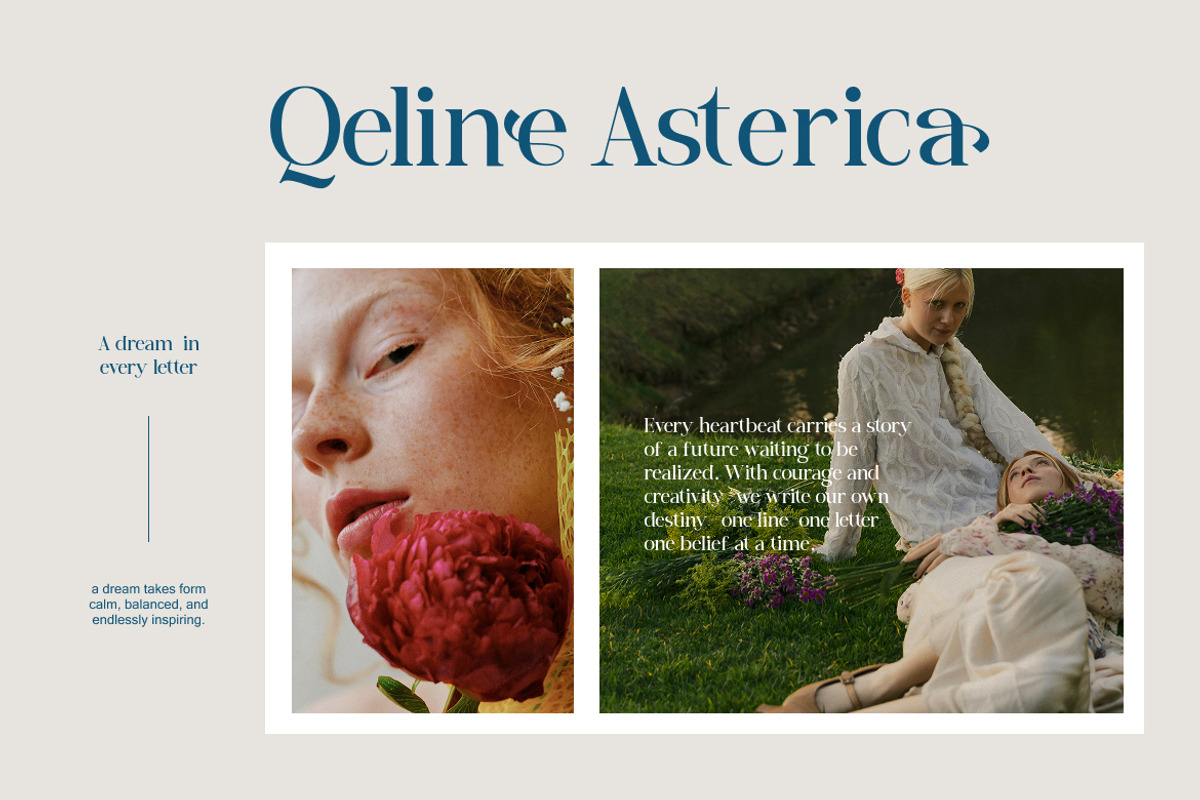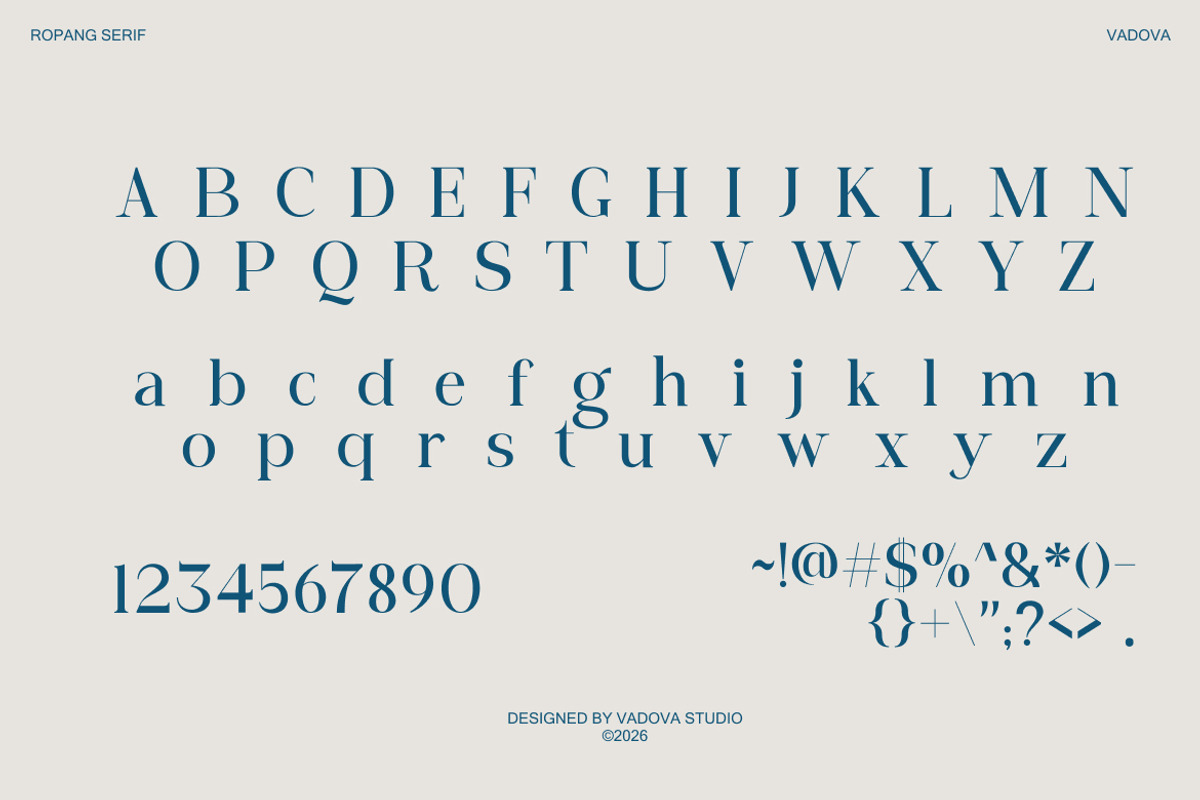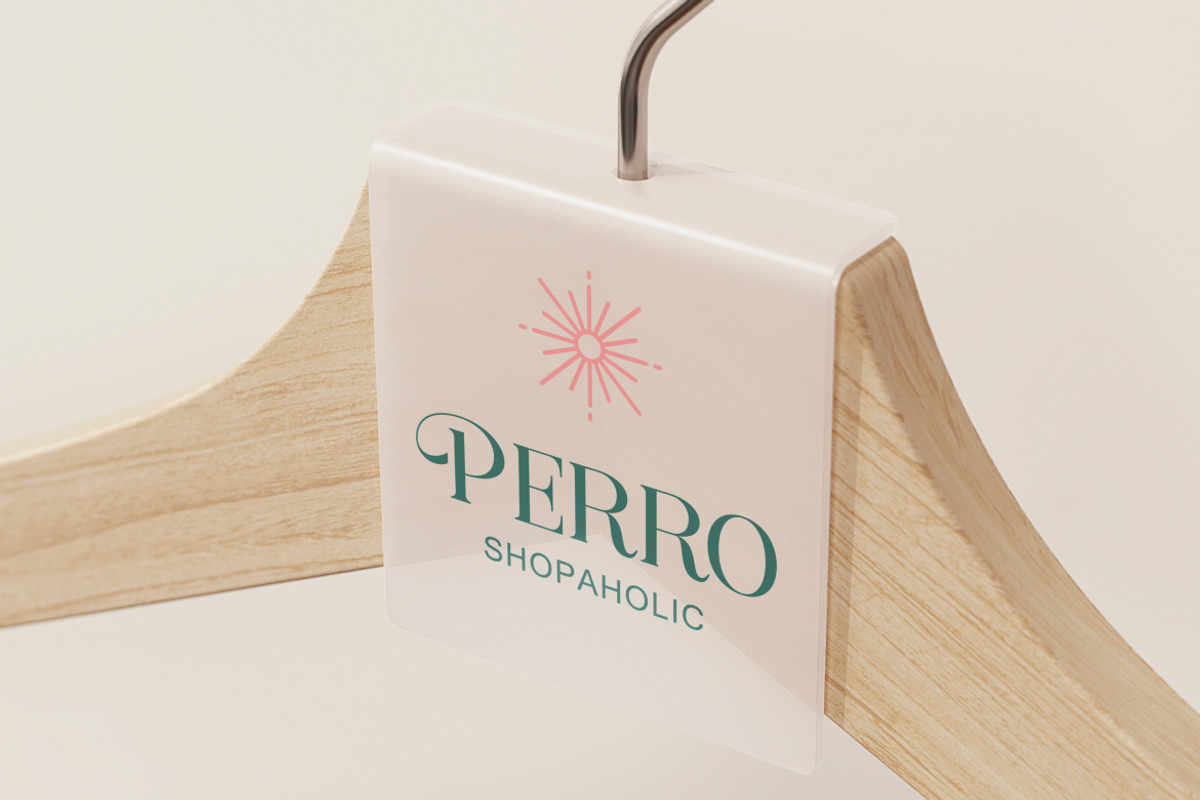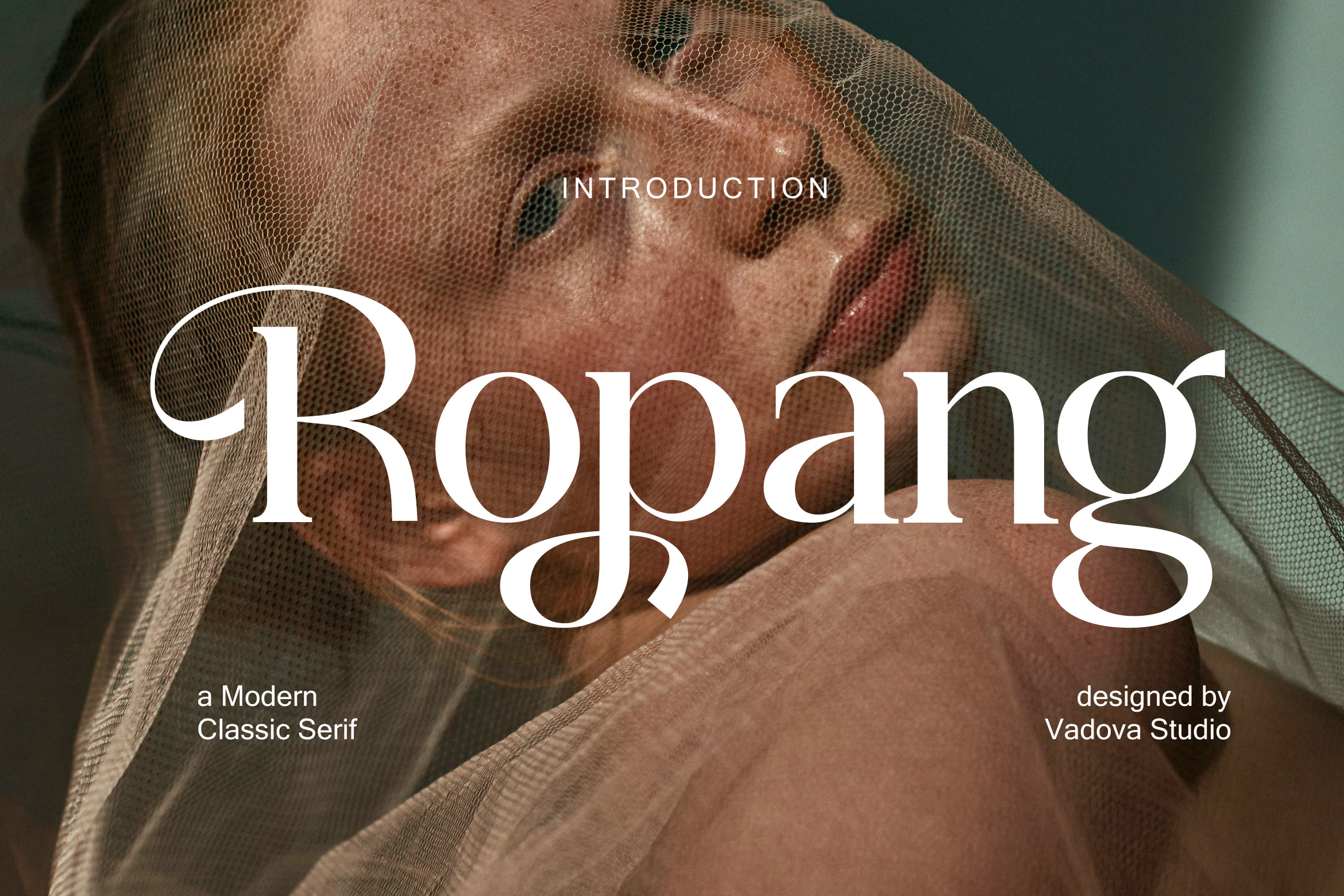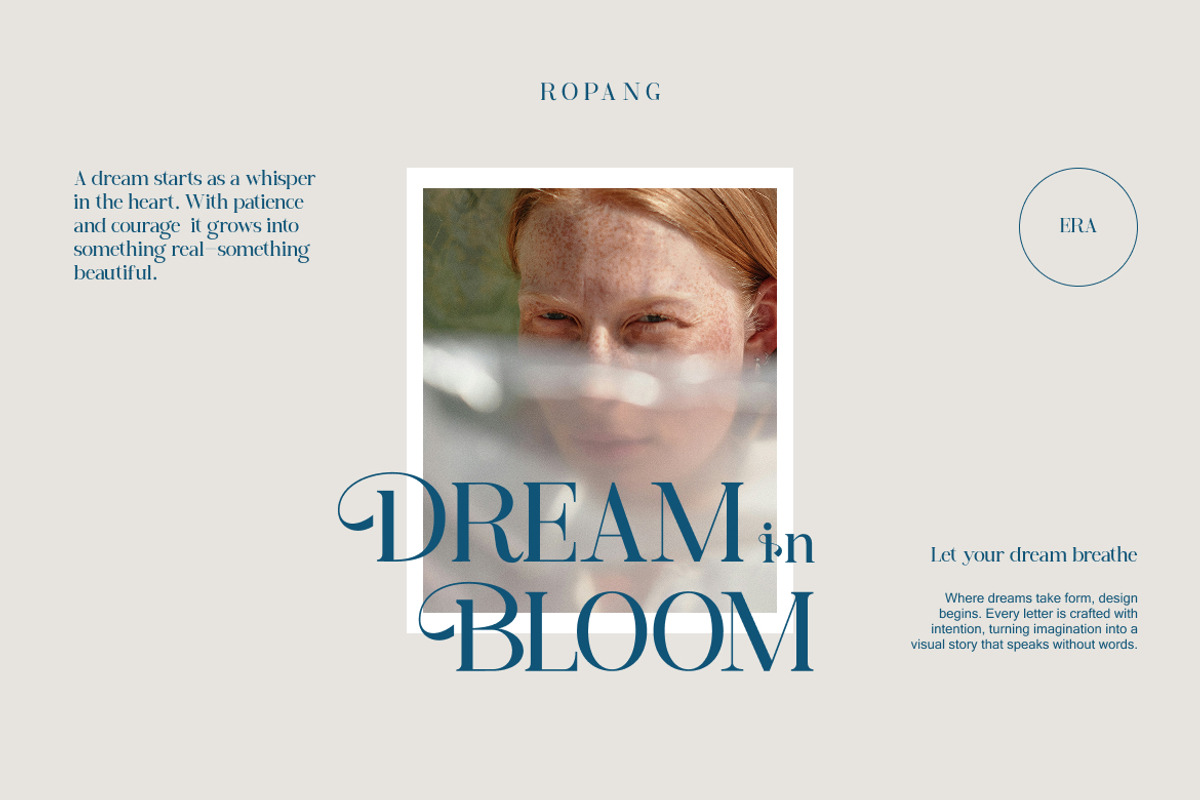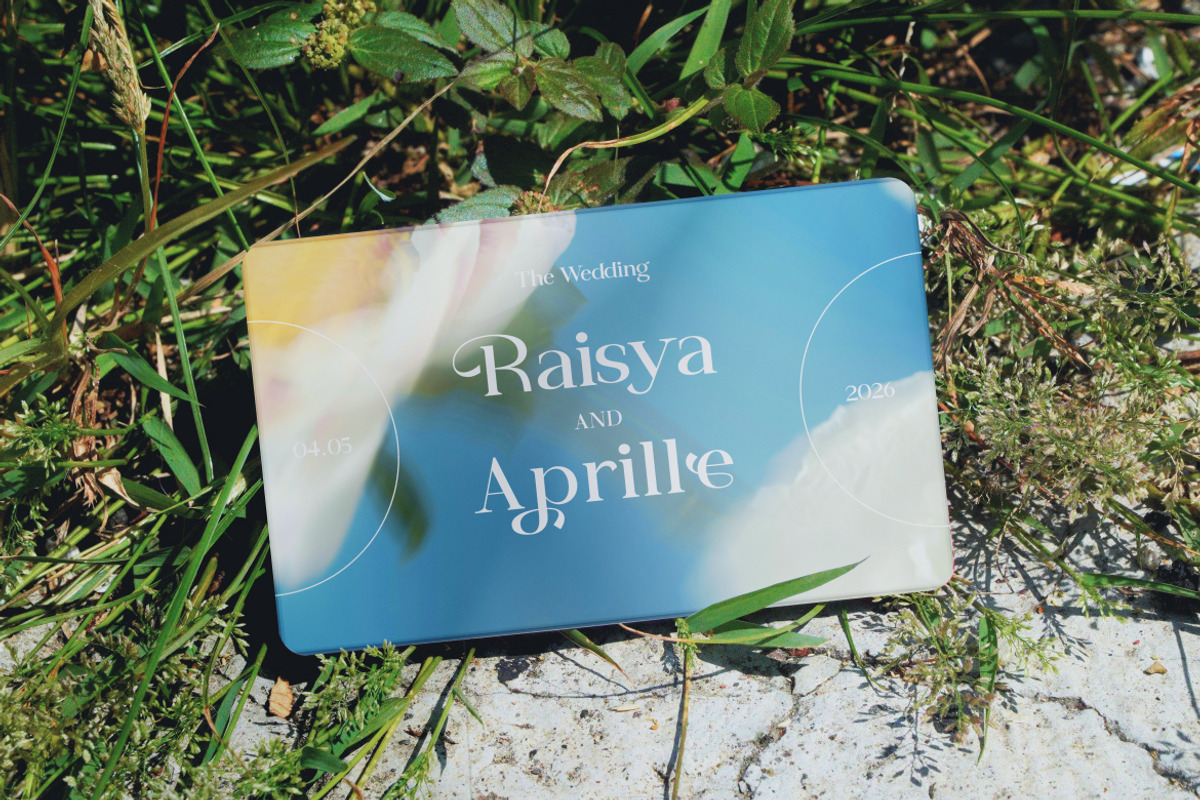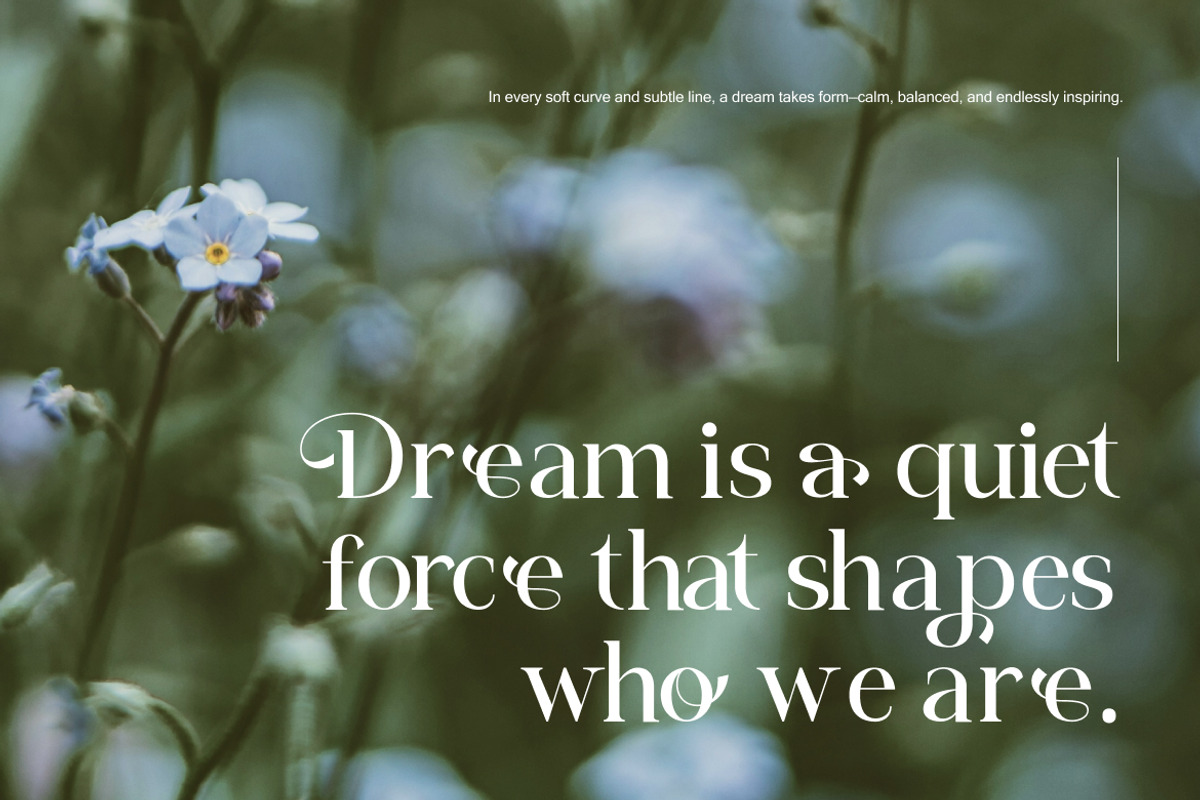
Ropang Modern Classic Serif Font
Ropang is a modern classic serif typeface designed with refined proportions and timeless elegance. Inspired by editorial and high-fashion typography, it features sharp yet graceful serifs, balanced contrast, and smooth curves that deliver a sophisticated visual tone. This font includes uppercase and lowercase letters, numerals, punctuation, and essential symbols, making it suitable for both display and refined text use.
Ropang is highly relevant for designers seeking a balance between modern clarity and classic sophistication. It works best in high-end branding, editorial design, fashion campaigns, luxury packaging, and visual identities that require an elegant and professional presence.
- Modern classic serif design with refined proportions and timeless character
- Elegant contrast between thick and thin strokes for a sophisticated look
- Sharp yet graceful serifs that enhance readability and visual interest
- Balanced vertical stress inspired by editorial and fashion typography
- Carefully spaced letterforms for clear display use and polished text layouts
- Brand identity systems seeking an elegant and timeless serif tone
- Editorial magazines, fashion lookbooks, and classic book layouts
- Luxury product packaging and premium label design
- Logo design for fashion, beauty, and high-end lifestyle brands
- Social media visuals and marketing materials with refined sophistication
Ropang brings modern refinement to classic serif typography